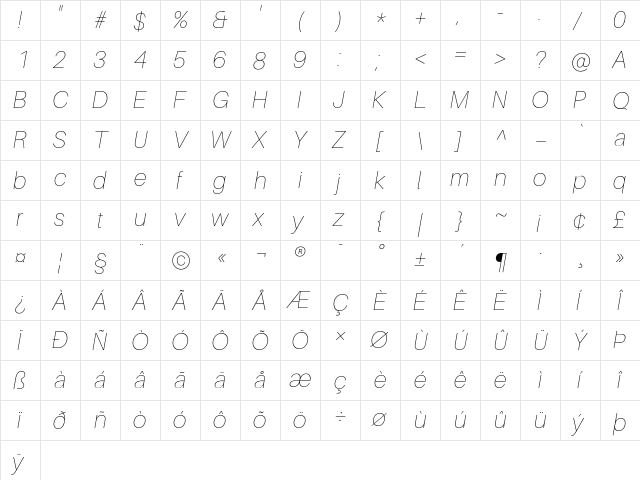
Aileron UltraLight Italic
Design Context for Aileron UltraLight Typeface
Aileron UltraLight offers clean, dependable letterforms without strong stylistic allegiance, making it a practical choice for designers who need flexibility. The slanted form adds forward momentum and visual energy. The delicate stroke weight brings airiness and refinement to layouts.
Pro Tip: Use Aileron UltraLight for emphasis, pull quotes, and subheadings where its slanted energy can add rhythm to the layout.